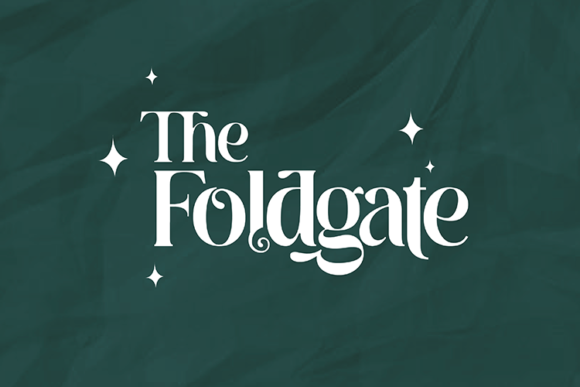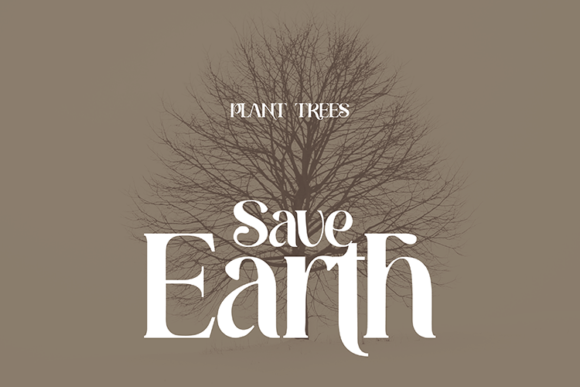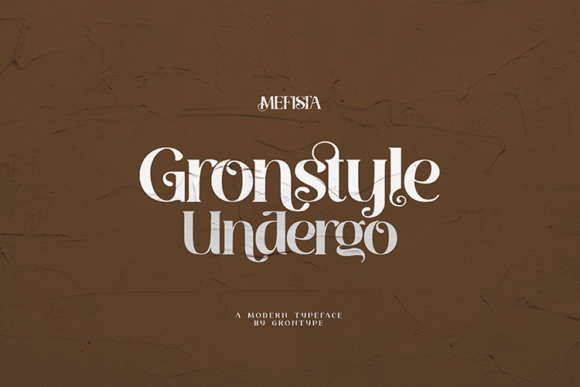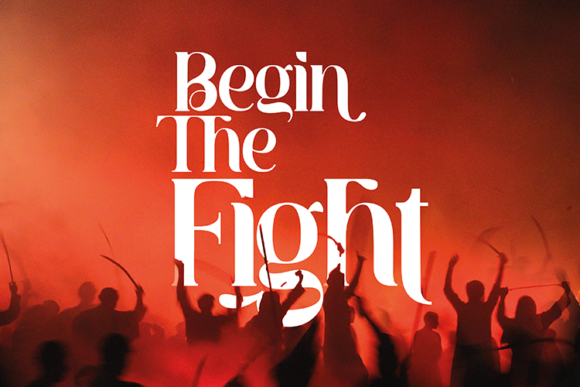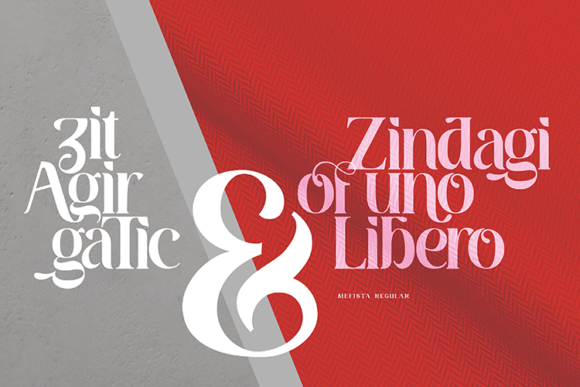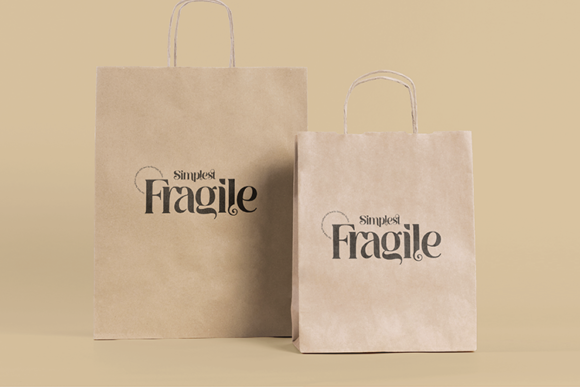
Introduction to Mefista Font
Have you ever stared at a blank canvas, struggling to find the perfect font to bring your creative project to life? I’m sure we’ve all been there – the blank page staring back, a constant reminder that we’re missing that one special element to make our design truly shine. But what if I told you that I’ve found the solution to that problem? Say hello to the stunning Mefista Font, a high-quality display font that’s sure to elevate your design to the next level.
With its elegant and sophisticated design, Mefista Font is the perfect design resource for any creative project. Whether you’re working on a logo, ad, or website, this wonderful font is sure to make your branding stand out. And the best part? You can download it for free, with a transparent background that’s perfect for any design need.
Key Features of Mefista Font
- High-quality, professional font suitable for creative projects and designs.
- Unique, elegant design with a touch of sophistication, making it perfect for luxury and high-end creative projects.
Honest Review: Mefista Font
As a designer, I’m always on the lookout for high-quality design resources that can elevate my creative projects. The Mefista Font is one such resource that caught my attention, and I’m excited to share my honest review with you.
What works well: ✨ The Mefista Font is a stunning, high-quality font that boasts a beautiful, elegant design. Its transparent background makes it perfect for use on any background, ensuring that your design doesn’t get lost in the mix. I love how versatile it is – I’ve used it for everything from logos to typography-heavy posters.
- High-quality design: The font is expertly designed and crafted, making it a valuable addition to any design library.
Limitations: ⚠️ While the Mefista Font is a great resource, I do have a few quibbles. The font is only available in a limited range of weights, which can make it a bit restrictive for certain design projects. Additionally, the font doesn’t come with a comprehensive character set, which may be a problem for designers working with non-English languages.
Overall impression: I’m thoroughly impressed with the Mefista Font, and I’d highly recommend it to designers looking for a high-quality, versatile font for their creative projects. While it may have some limitations, its benefits far outweigh its drawbacks.
The Mefista Font is a high-quality design resource, perfect for any creative project. This free download features a unique, elegant style that is sure to elevate your designs. With a transparent background, it’s easy to customize and use in a variety of applications.
The Mefista Font is perfect for a variety of creative projects, including logos, business cards, brochures, and more. Its elegant and sophisticated style makes it ideal for use in corporate branding, marketing materials, and other professional applications.